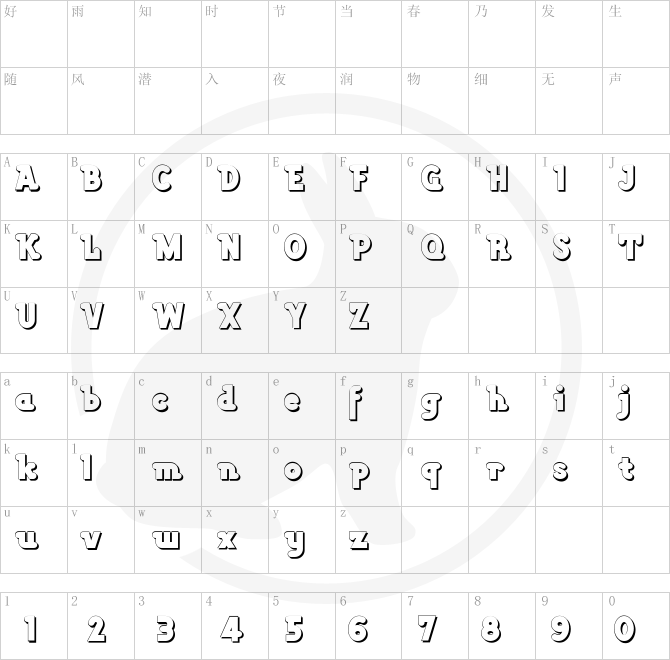
- Font Name:Lackawanna Weed NF
Lackawanna-Weed-NF.ttf is a very beautiful artistic font, Lackawanna-Weed-NF.ttf is widely used in the design and printing of various books and pictures,Lackawanna-Weed-NF.ttf has a strong visual impact,Lackawanna-Weed-NF.ttf is a commonly used font in newspapers, magazines and books, and is used in posters, e-commerce Poster design, store design, logo design, font design and other fields.Lackawanna-Weed-NF.